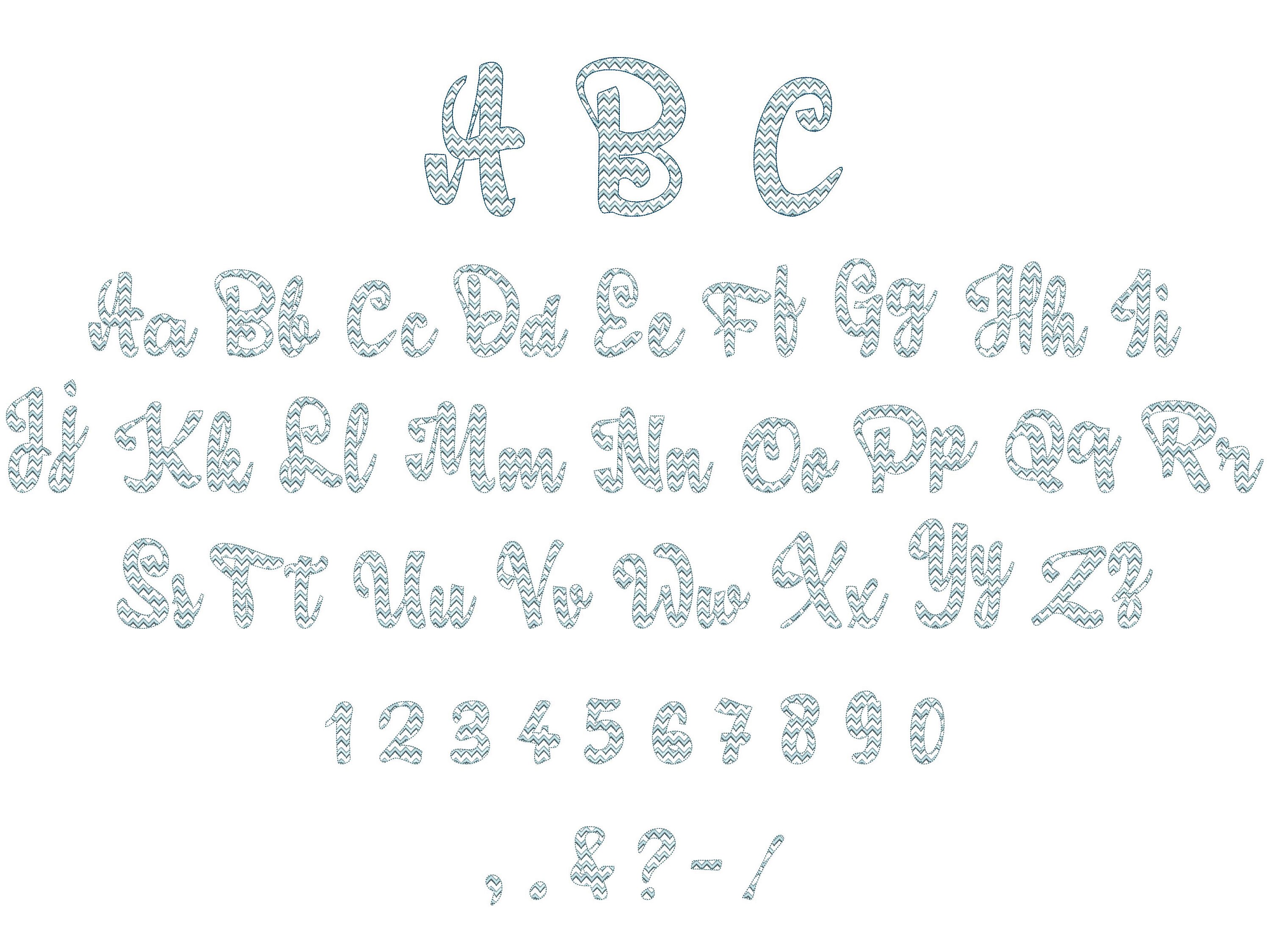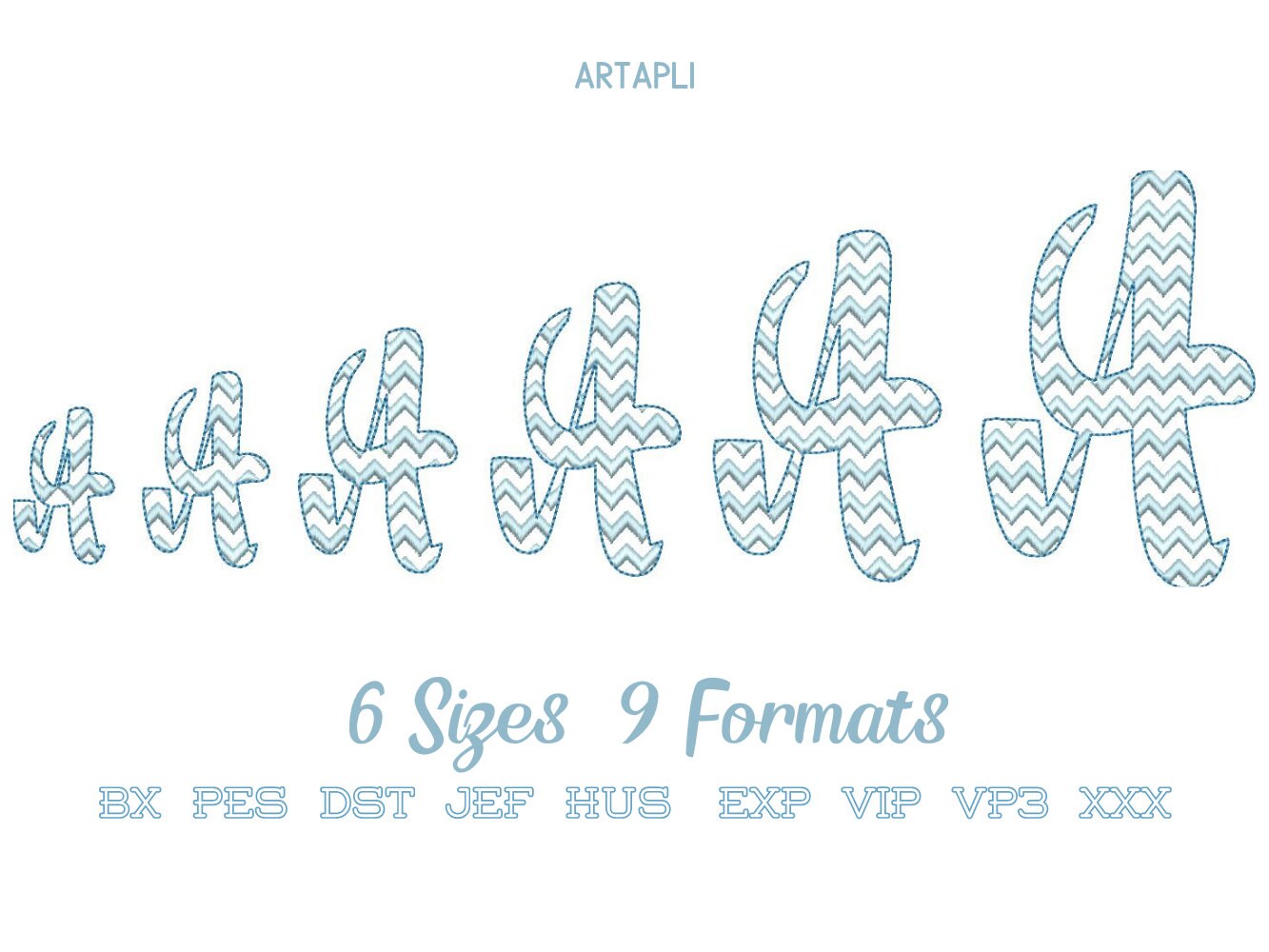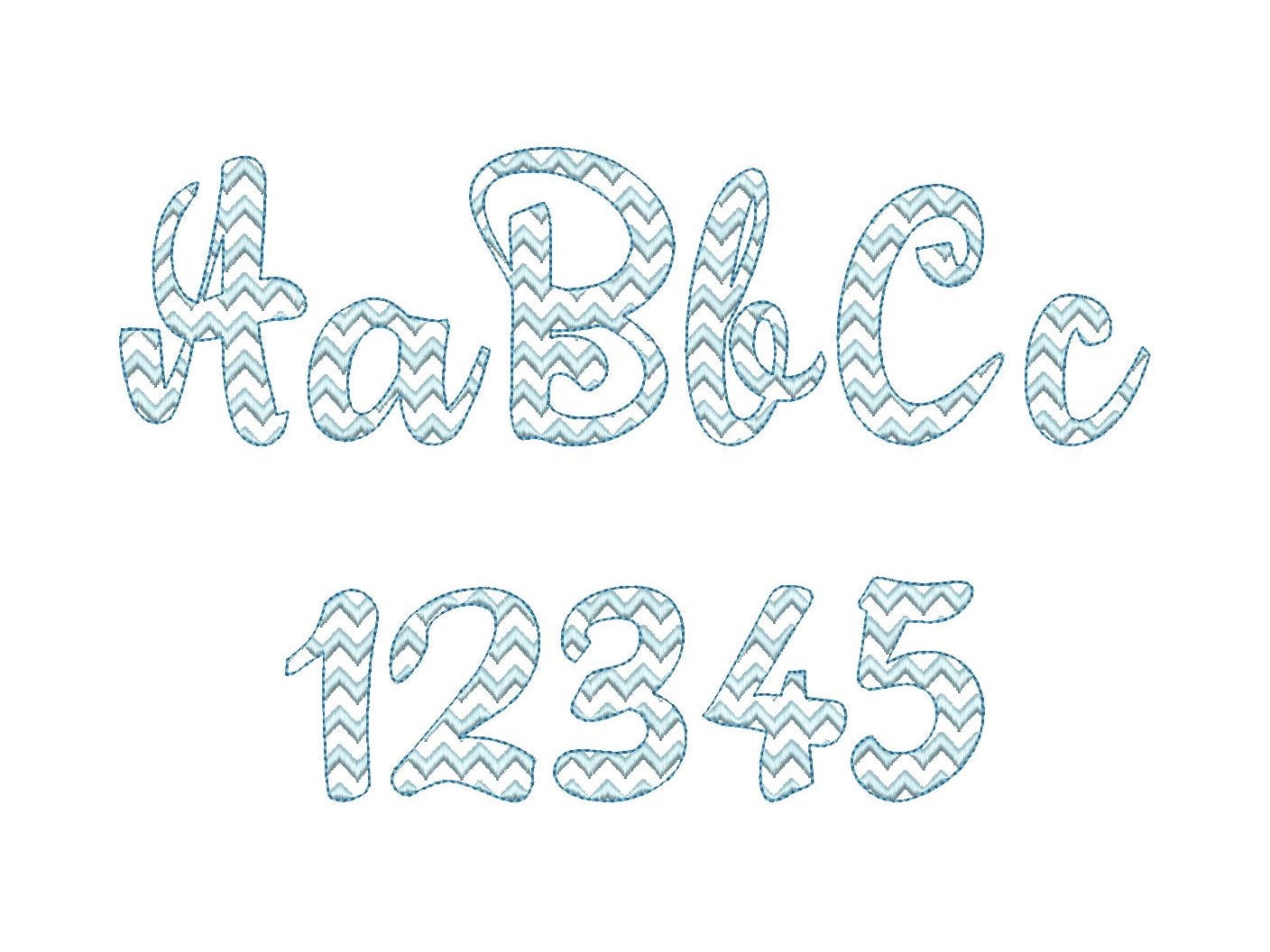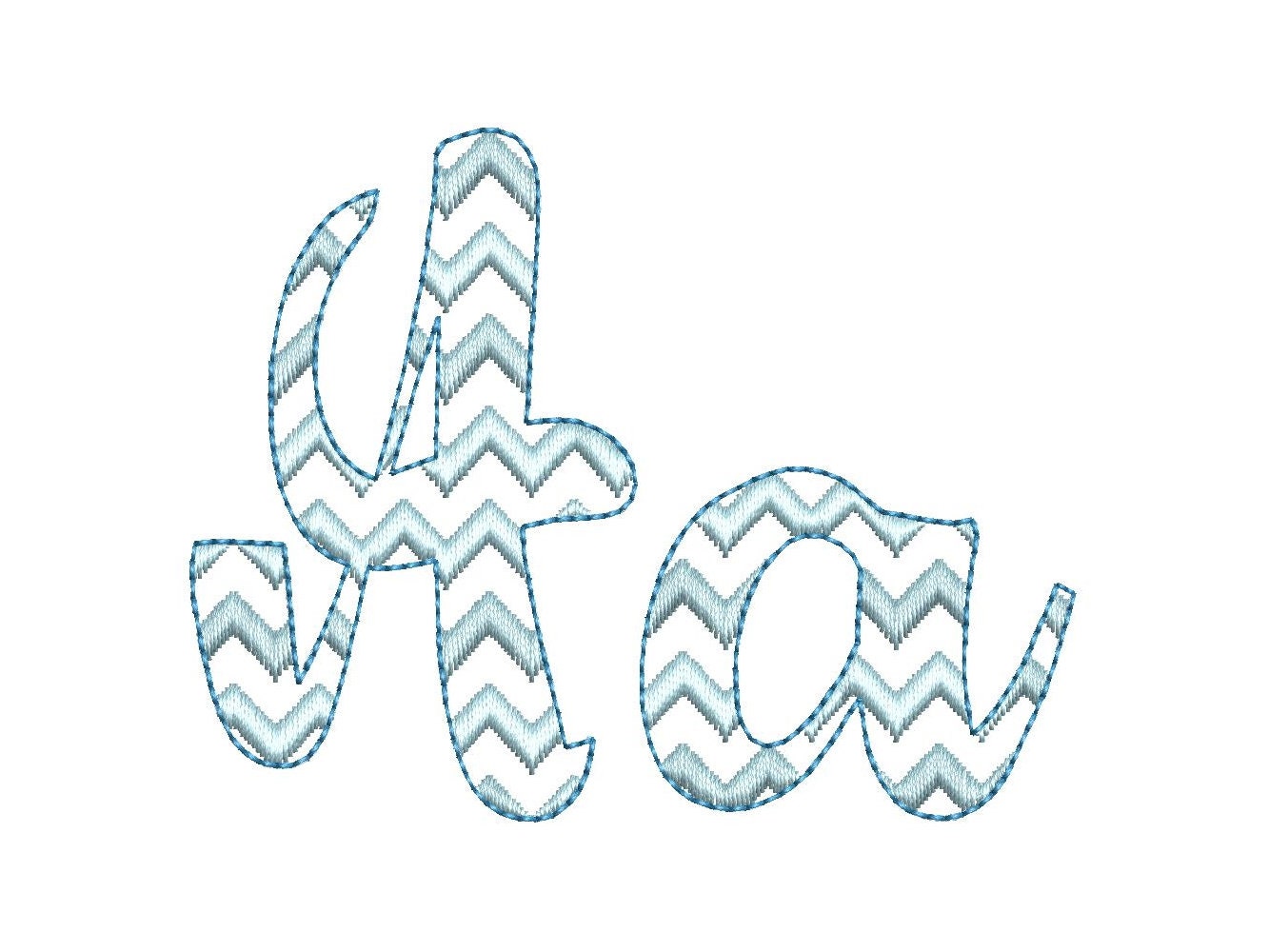
Chevron ZigZag Font 2 two colors script cursive alphabet RIC RAC machine embroidery designs assorted sizes kids name font, letters and numbers
The font is transparent and has a satin stitch chevron pattern and a light bean stitch outline.
Included: uppercase and lowercase letters, numbers and punctuation & . , - ? / !